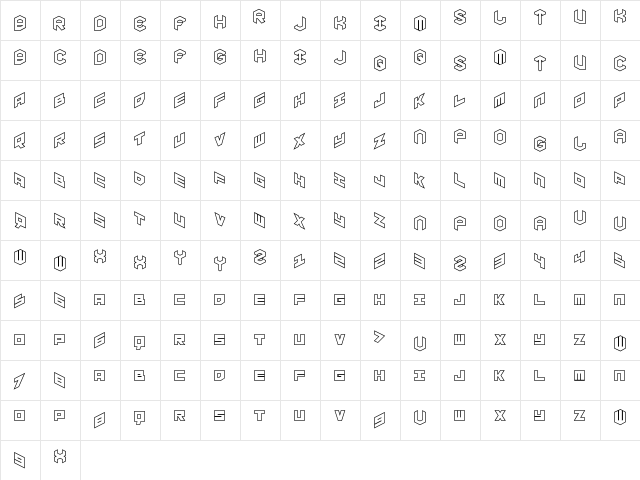
YAY USA Outline Regular
Design Context for YAY USA Outline Typeface
YAY USA Outline is built around its visual character rather than neutral utility — its distinctive forms are designed to make an impression at display sizes.
Font Pairing: Pair with a clean neutral sans-serif for body copy to let YAY USA Outline's character lead without overwhelming the composition.
Pro Tip: Treat YAY USA Outline as the centrepiece of your typographic hierarchy. One strong heading set in a decorative face can carry an entire layout.